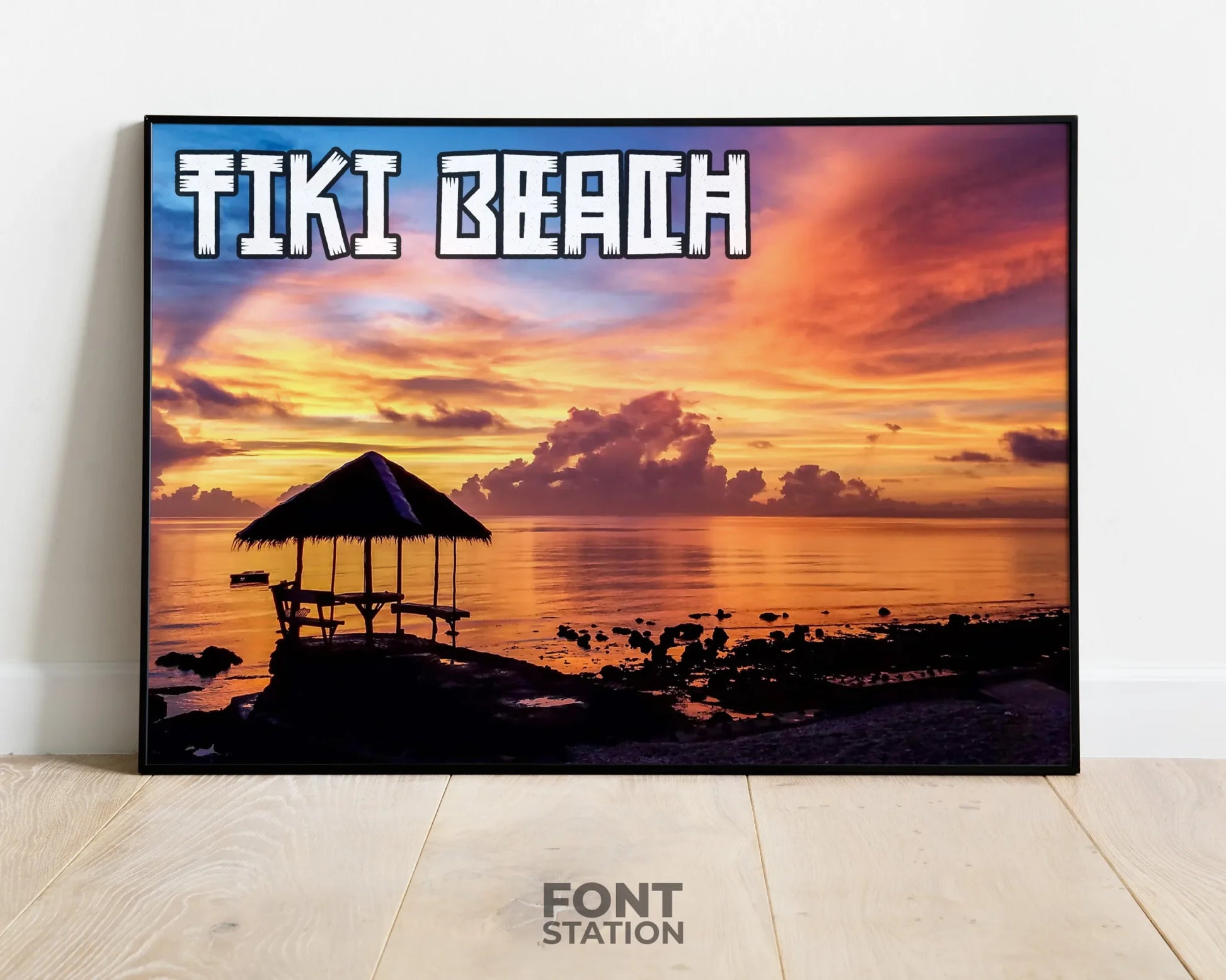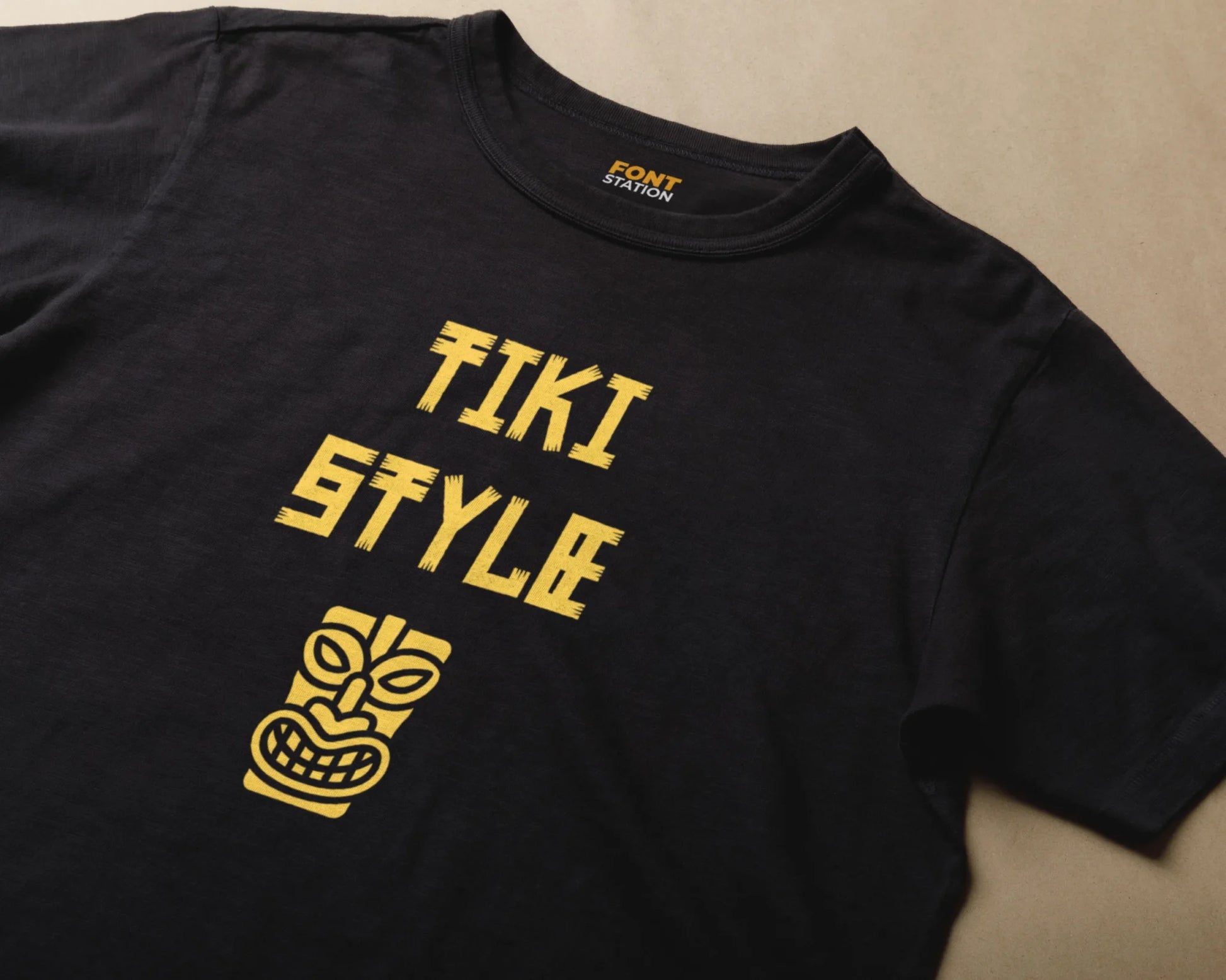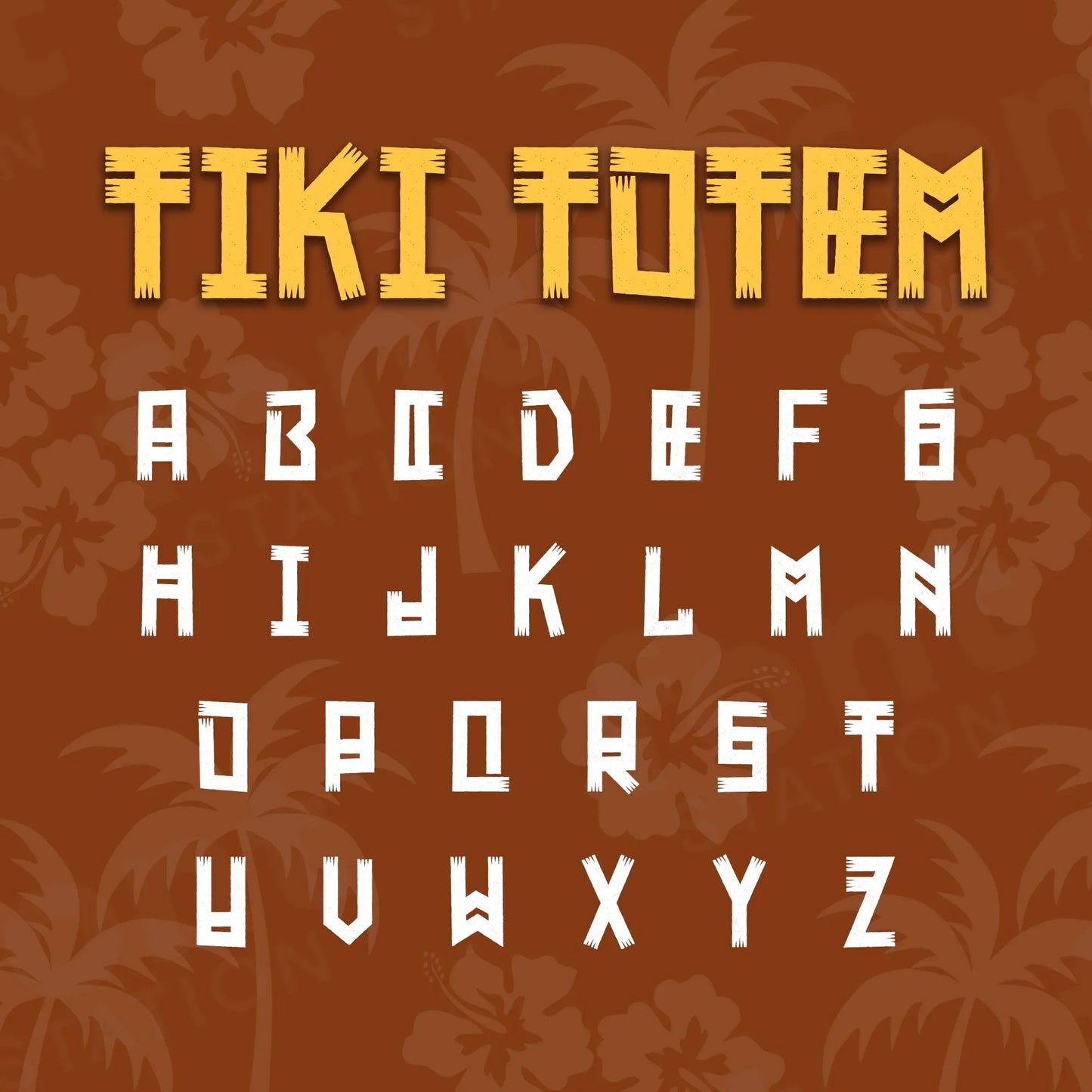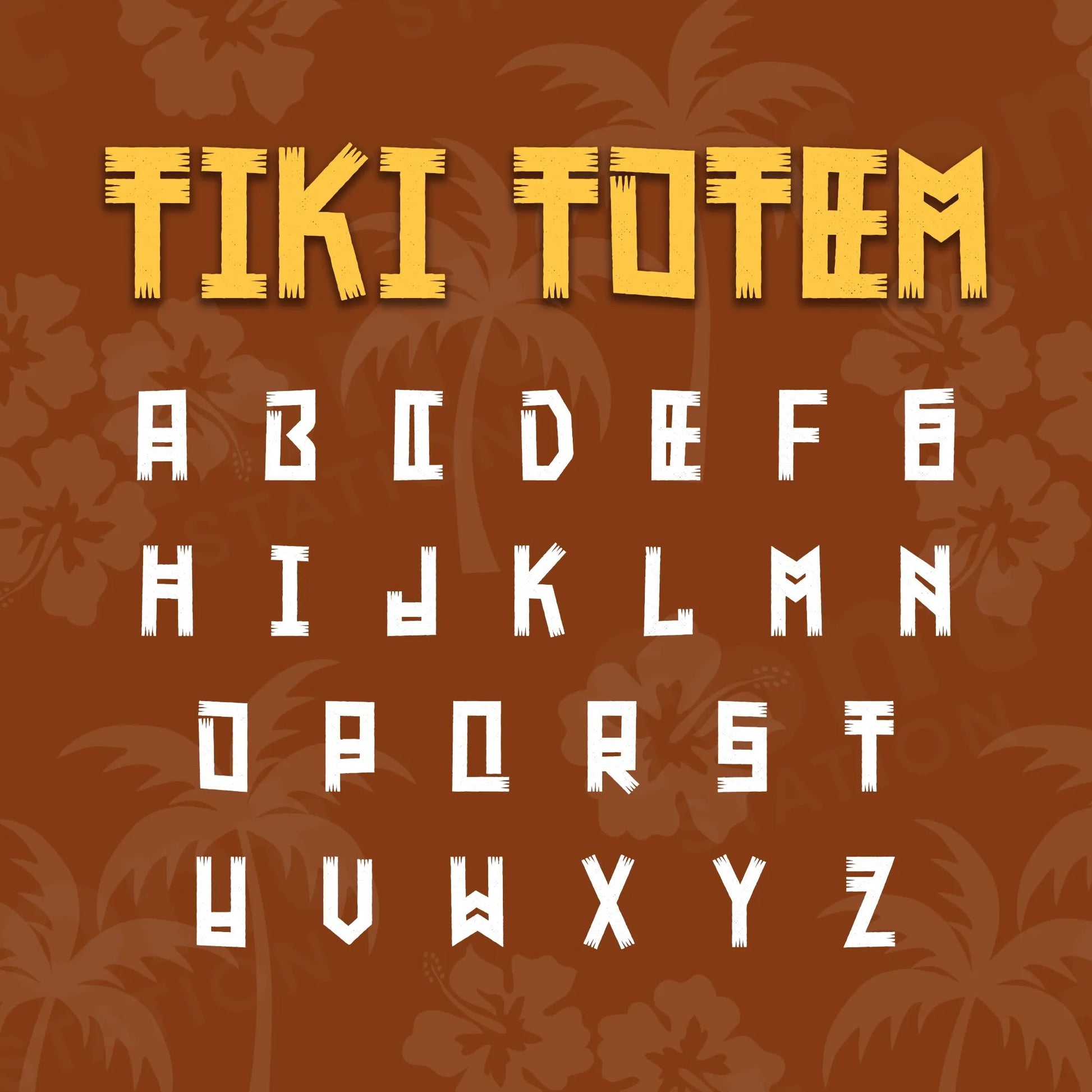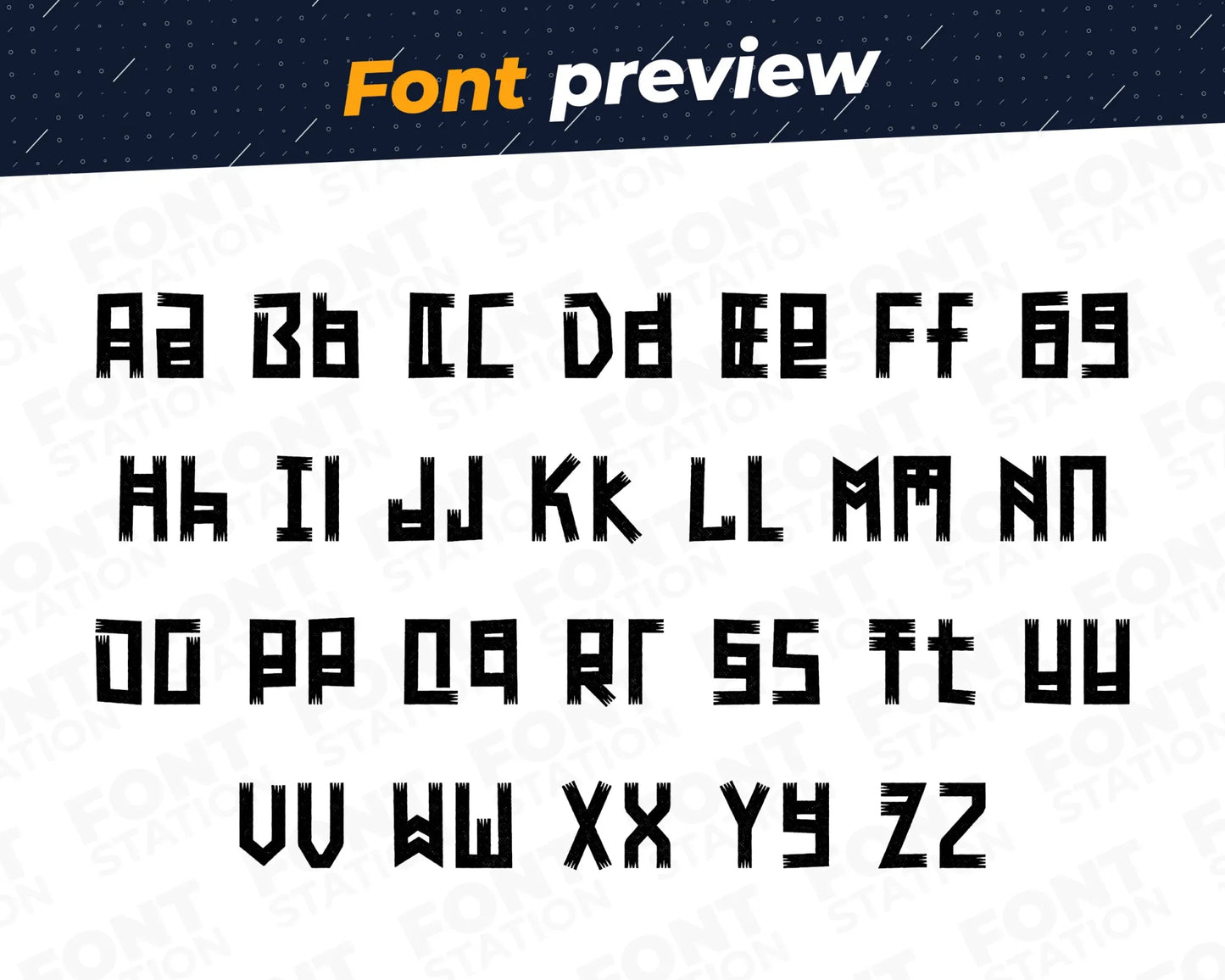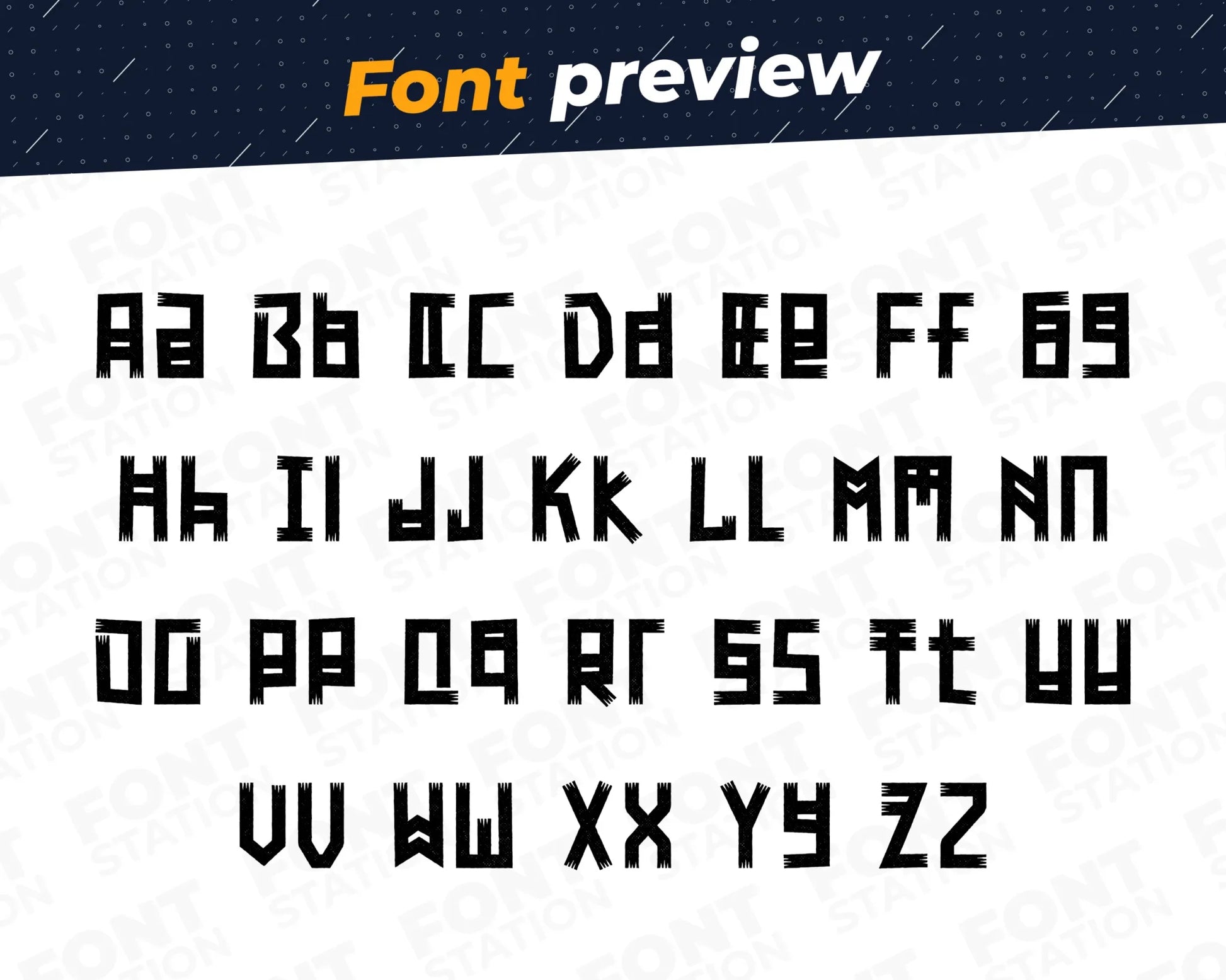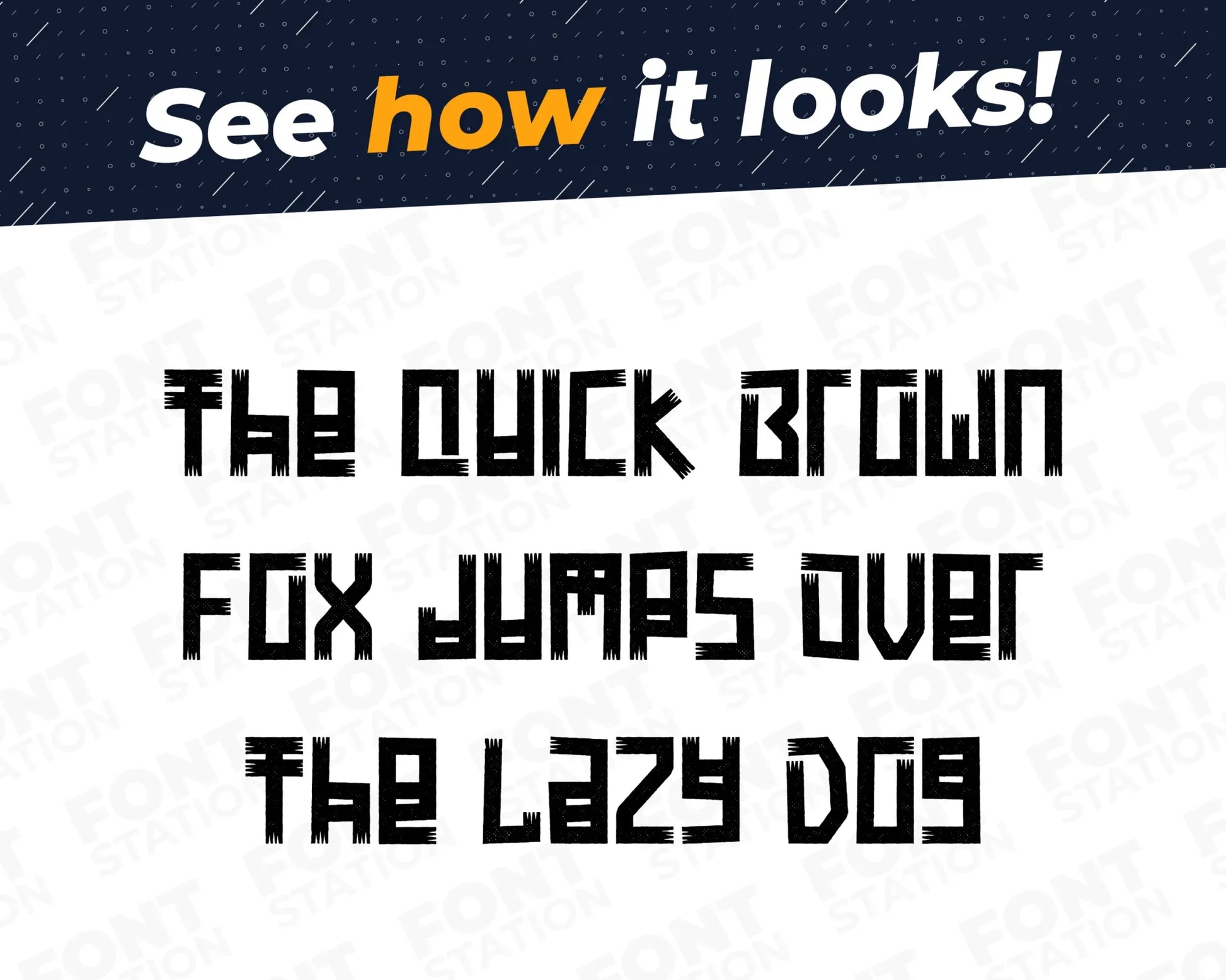
Tiki Totem Font
Our Tiki Totem typeface, inspired from Hawaii Beach font
Grab your computer, tablet or other device and start creating right now with our Tiki Totem font letters! Our Tiki Totem typography is inspired from Hawaii Beach font, making it ideal for various digital creations (logo, word...), sublimation, cake toppers, stickers, event decorations, and more.